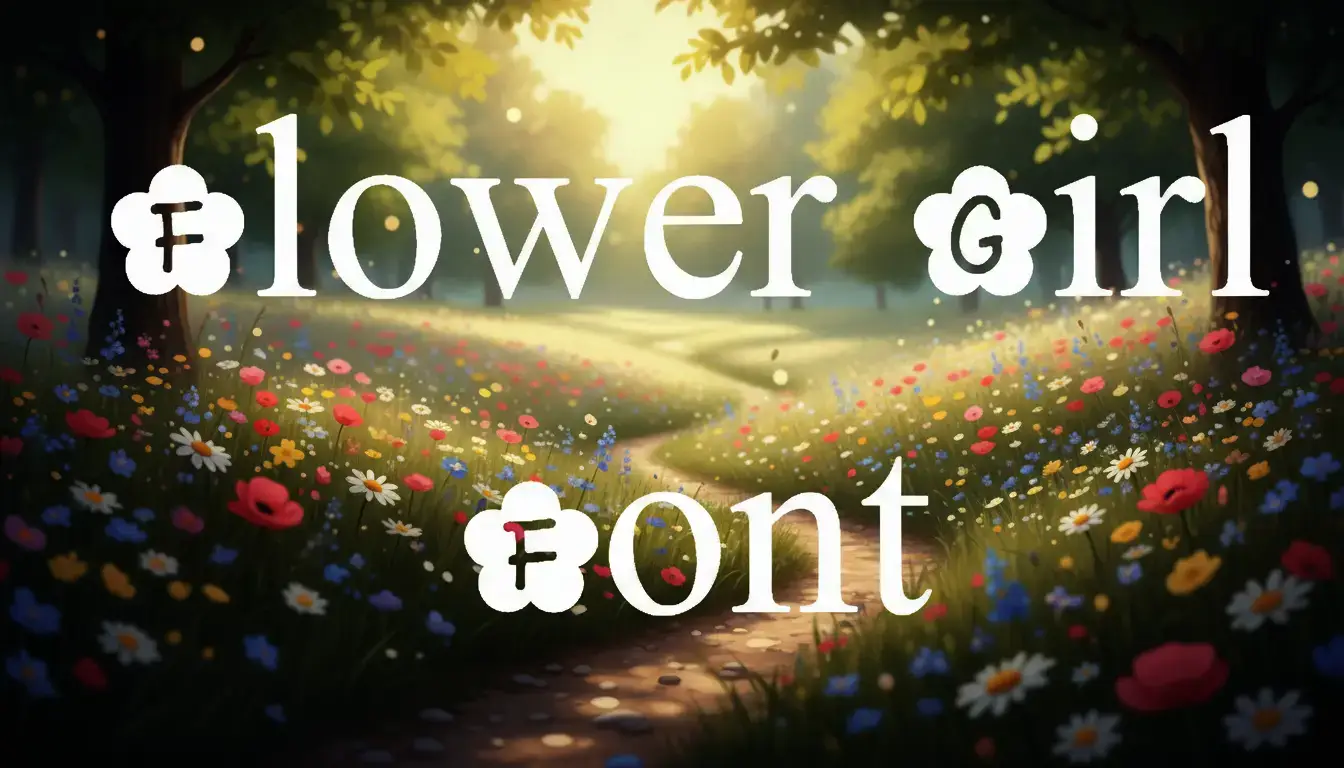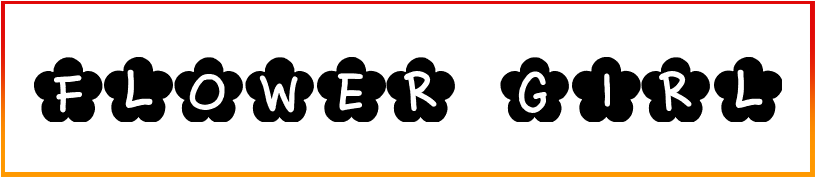
Flower Girl Font
Flower Girl
Flower Girl is a fancy font created by me. It's a decorative display font with plenty of personality, made to grab attention. It's a free download, and you can try it with your own text in the preview above first.
Flower Girl is an all-caps font: it only has capital letters. Lowercase letters will show up in a different font or as empty boxes, so turn on Caps Lock when you type. All ten numbers are included. Punctuation is limited, so look at the character map if you need a specific symbol. It doesn't include accented letters such as é or ñ, which makes it an English-only font.
Flower Girl is a natural fit for posters, logos and eye-catching headlines. Use it for one standout word or headline and let simpler fonts handle the rest.